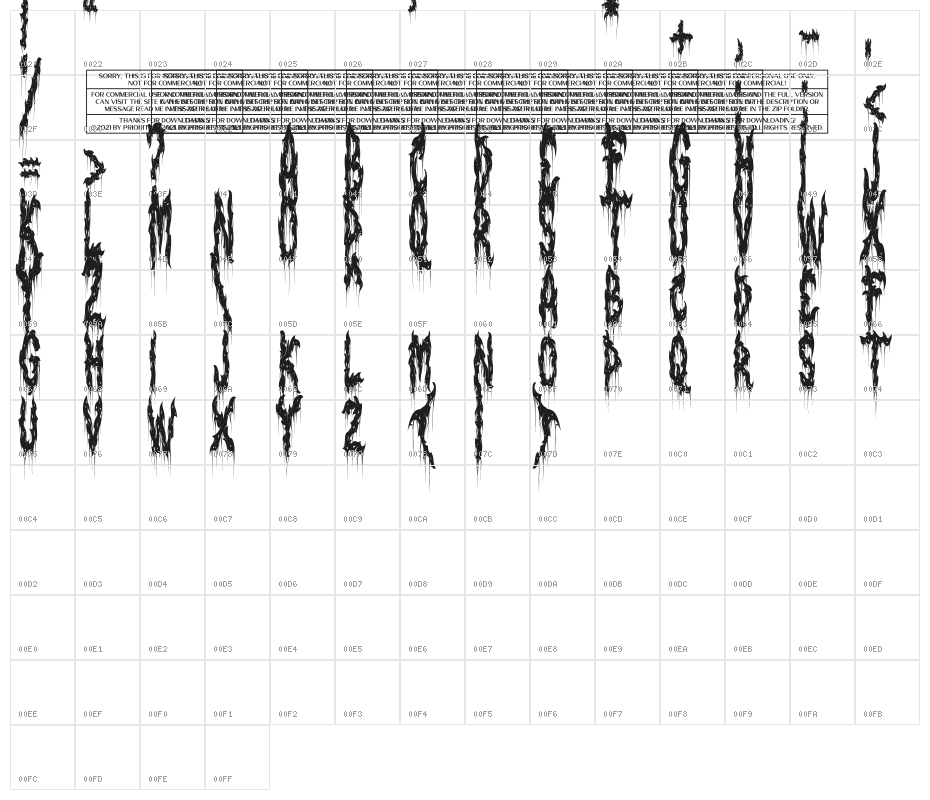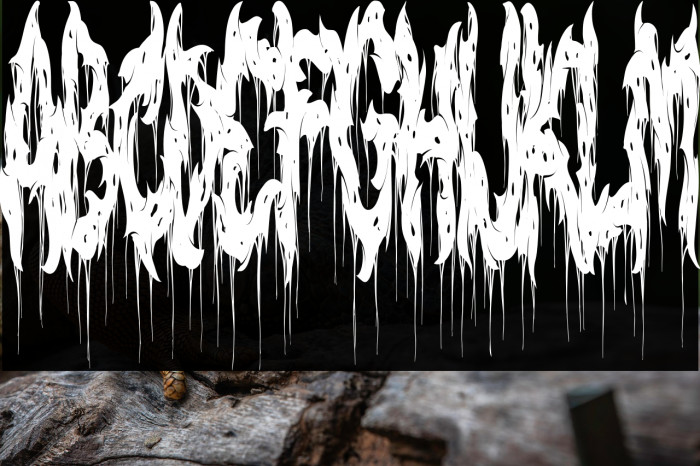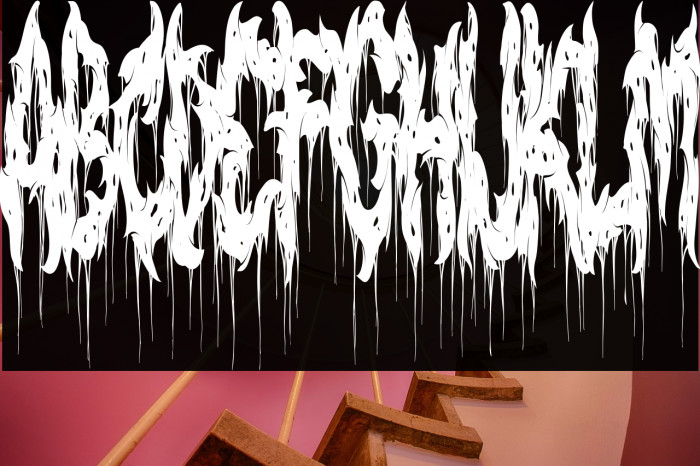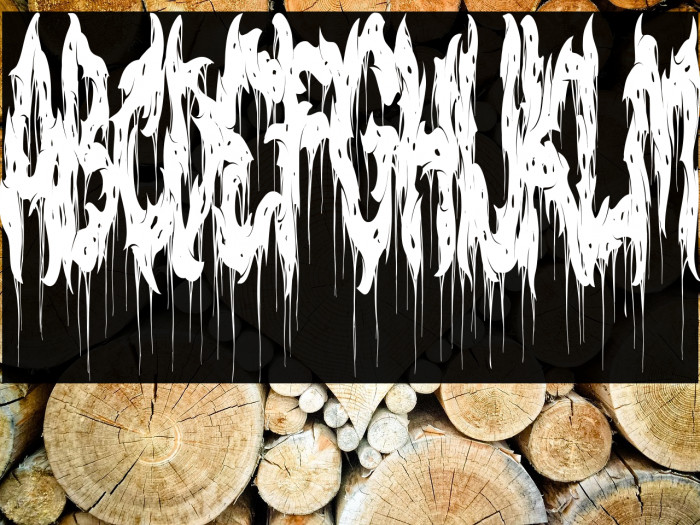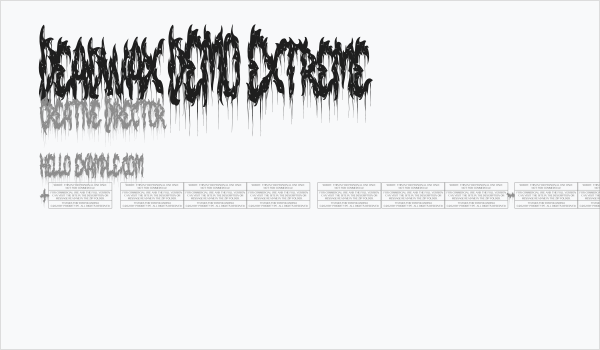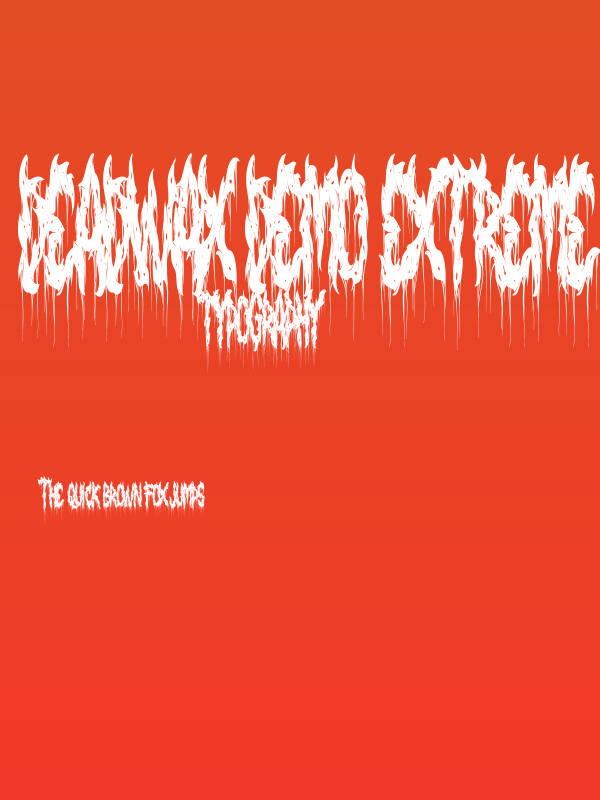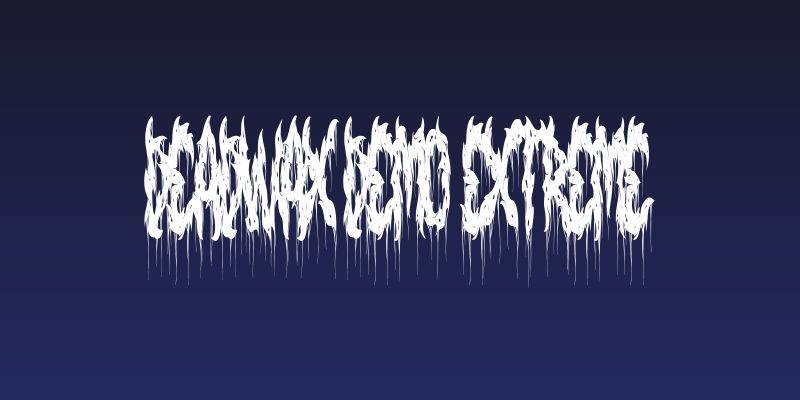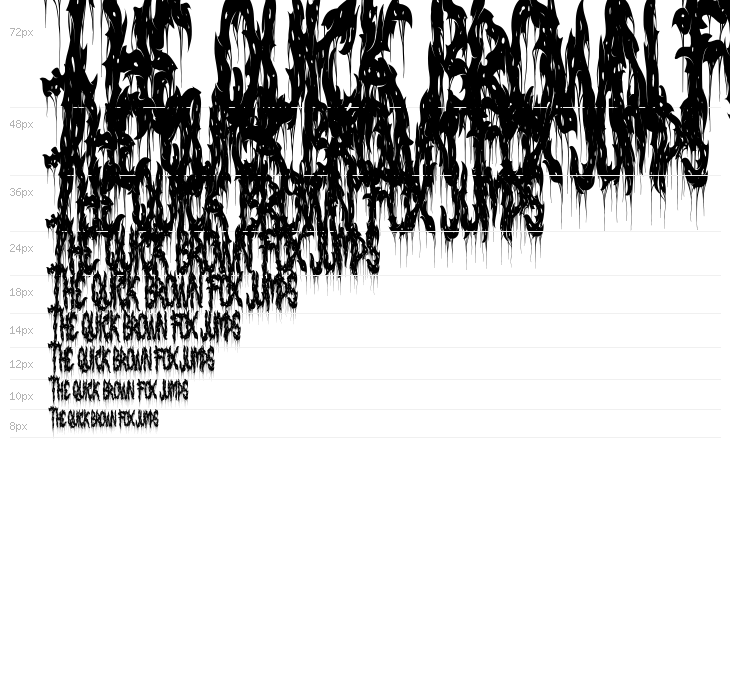
Deadwax DEMO Extreme Font
Deadwax DEMO Extreme Description
This font features an extreme, decorative style with a dripping, liquid-like appearance. Each character is heavily stylized, resembling melting or flowing ink, which gives it a dramatic and intense visual impact. The letters are bold and have a high contrast between the thick, solid parts and the thin, dripping extensions. This font is highly artistic and unconventional, making it stand out in any design. The unique form of each letter adds a sense of movement and chaos, which can be both captivating and overwhelming. It is not suitable for body text due to its complexity but can be a striking choice for specific thematic projects.
| Proposed Projects | Ideal for horror-themed designs, album covers, posters, or any project requiring a dramatic and edgy aesthetic. |